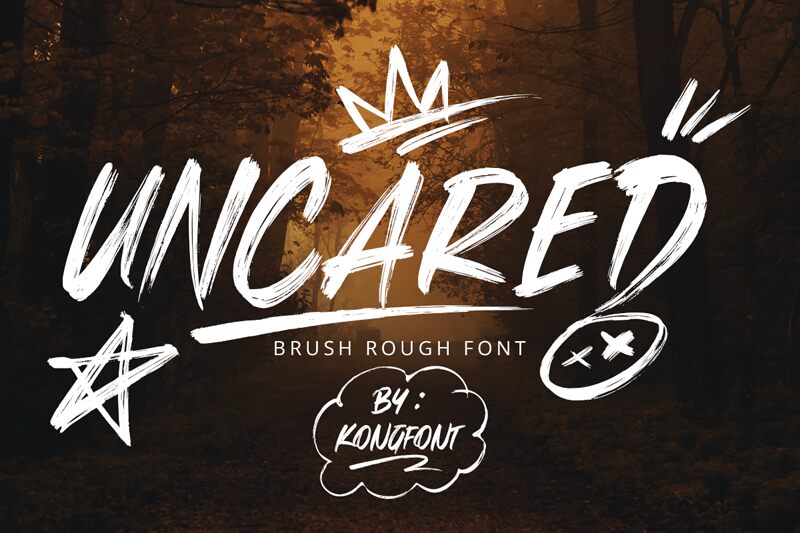
Uncared, a captivating brush font crafted by Kong Font, exudes a sense of effortless elegance and understated sophistication. With its condensed width and fluid strokes, this font radiates a captivating blend of artistry and modernity. The organic, hand-drawn aesthetic lends an authentic, personalized touch, making it a standout choice for projects seeking a distinctive yet refined typographic expression.
Uncared's versatility shines through, making it a versatile selection for a variety of design applications. From editorial layouts and branding materials to packaging and promotional collateral, this font's unique character and adaptability ensure a visually cohesive and impactful result. Its condensed structure also allows for dynamic text configurations, making it an ideal choice for eye-catching headlines, impactful logotypes, and attention-grabbing copy.